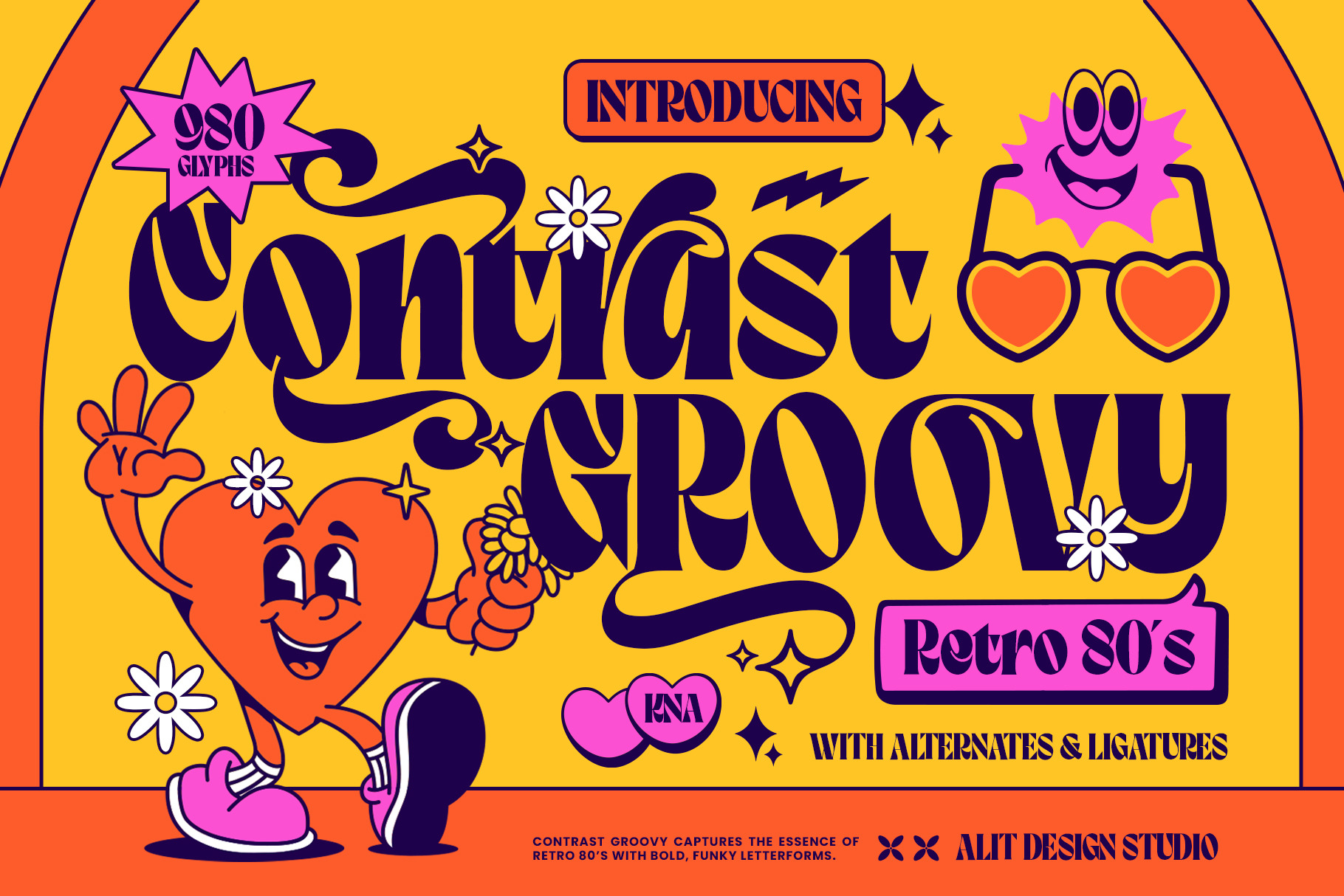
Contrast Groovy Typeface
Contrast Groovy Typeface: The Ultimate Retro Revival
Step back into the golden era of design with Contrast Groovy Typeface, a bold, high-contrast serif that perfectly captures the funky, vibrant essence of the 1980s. Designed for those who want their typography to speak with personality and rhythm, this font blends vintage nostalgia with a sharp, modern execution.
Contrast Groovy isn't just a font; it’s a complete design toolkit. Featuring thick, expressive strokes paired with elegant thins, it creates a visual "groove" that is impossible to ignore. Whether you are designing a streetwear brand, a retro-themed poster, or eye-catching social media content, this typeface brings a "savage elegance" to every pixel.
Why You’ll Love It:
- Massive Character Library: With over 980+ Glyphs, your creative possibilities are endless.
- 7 Distinct Stylistic Sets: From "Star-studded" alternates to sleek "Swash" endings, you can customize every word to fit your vibe.
- Ligature Heaven: Includes a huge collection of custom Uppercase and Lowercase ligatures that create seamless, hand-lettered connections.
- Bonus Dingbats: Get a set of retro-inspired illustrations (characters, sparkles, and icons) that perfectly match the font’s aesthetic.
- Vibe: Funky, Bold, Psychedelic, and Effortlessly Cool.